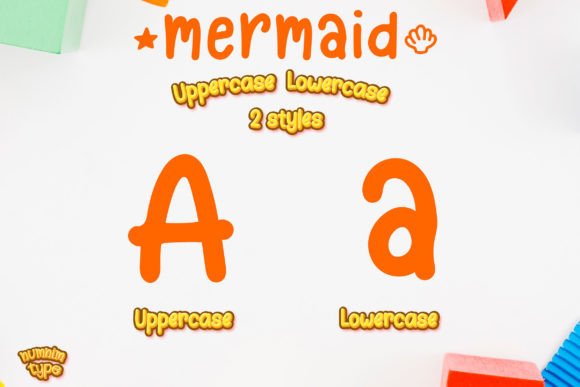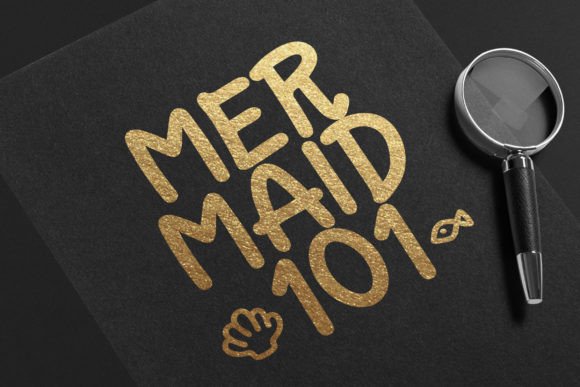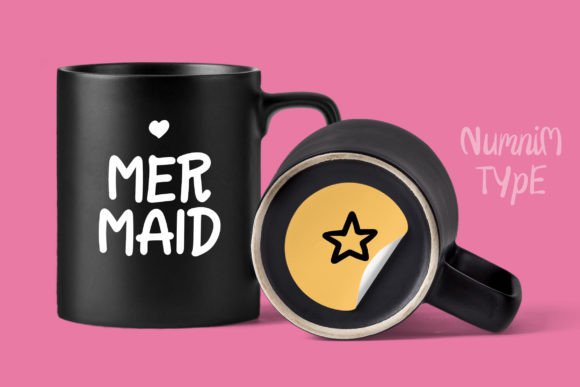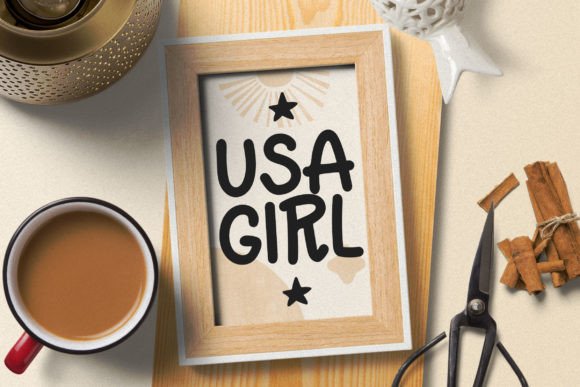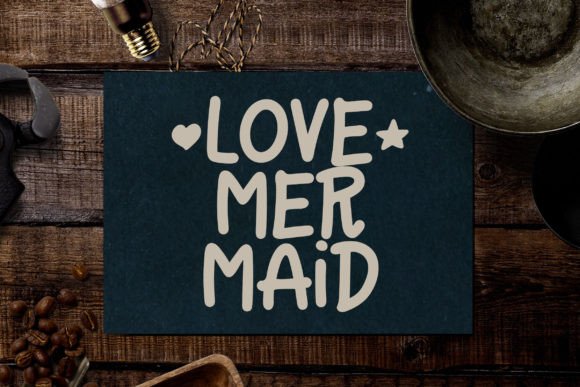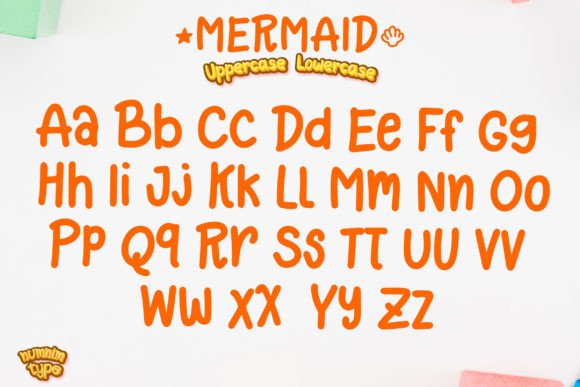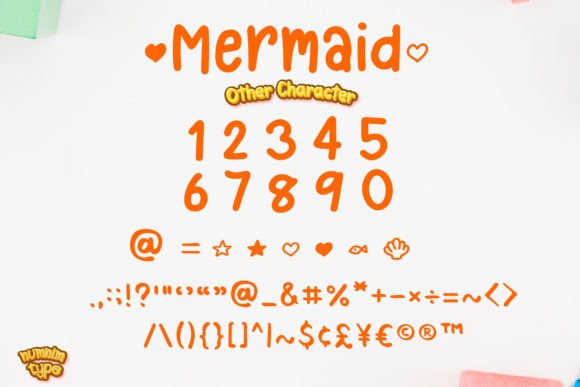
Mermaid Font
About Mermaid Font
Mermaid is not just a font; it’s a whimsical and uniquely crafted handwritten typeface designed to bring a sense of fun and playfulness to your creative projects. Its cute and playful characters make it the perfect choice for a variety of applications, including stickers, mugs, t-shirts, ornaments, summer event cards, and more. Mermaid adds a touch of charm to your designs, making them stand out with a delightful and carefree vibe.
The handwritten style of Mermaid is a key feature that contributes to its unique and playful character. The irregularities and personalized touch of each letter make it feel as though it was crafted by hand, adding a warm and friendly aesthetic to your text.
Whether you’re creating stickers that need to convey a sense of joy, designing t-shirts with a playful message, or crafting summer event cards that capture the spirit of the season, Mermaid becomes a versatile and captivating choice. Its fun characters ensure that your designs exude a lighthearted and carefree vibe.
The application of Mermaid extends to various products, including mugs and ornaments, where the font’s playful nature can add a touch of personality and uniqueness. It becomes a design element that enhances the overall visual appeal, making your products more engaging and memorable.
In summary, Mermaid is more than just a font; it’s a creative tool that infuses a cute and playful spirit into your designs. Embrace its whimsical characters and use it to bring joy to stickers, mugs, t-shirts, ornaments, summer event cards, and any other project where a touch of charm is desired. Let Mermaid be the font that adds a delightful and carefree vibe to your creative endeavors.